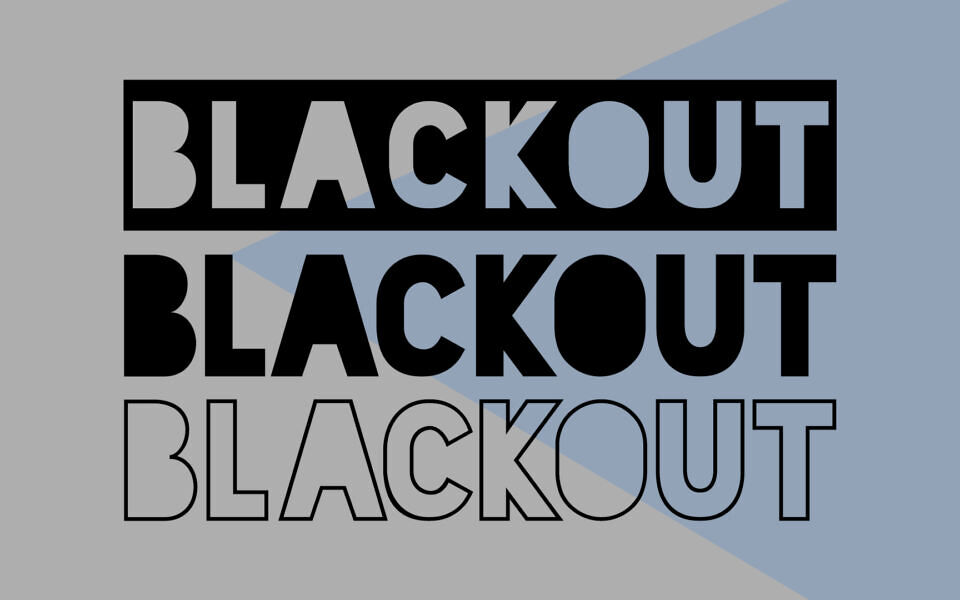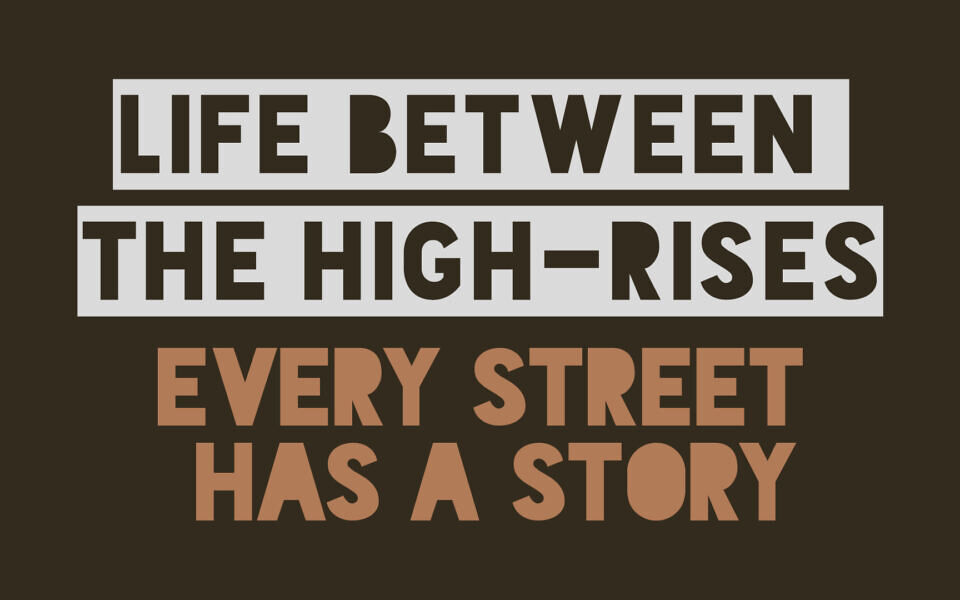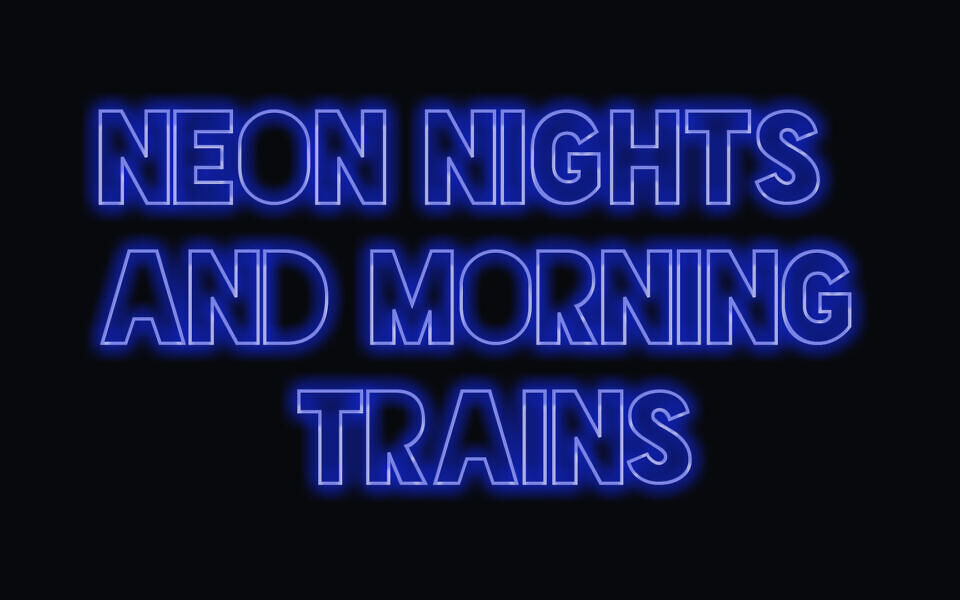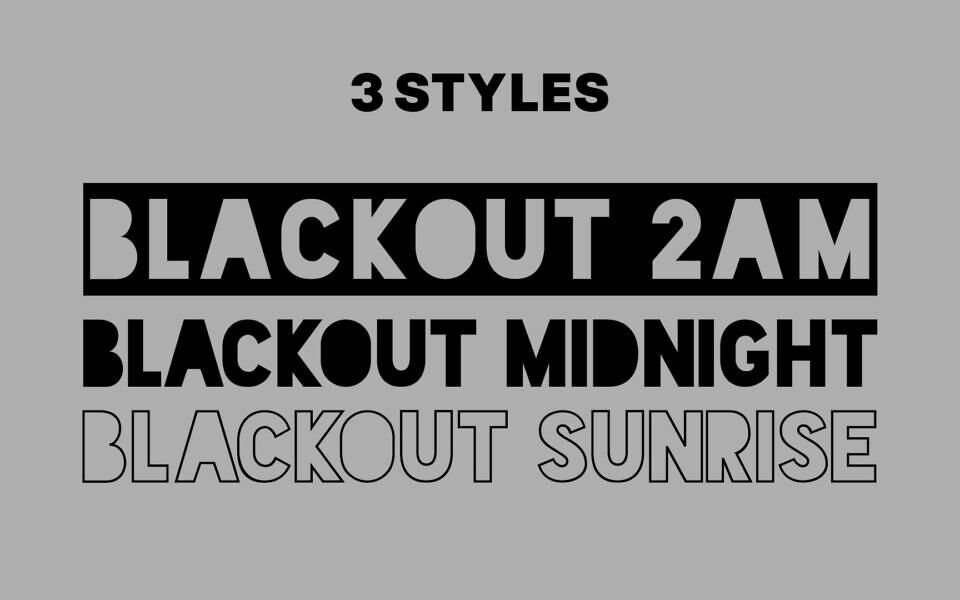
Blackout Font Family
Blackout is a bold display font by Tyler Finck, inspired by filled-in sans-serif newspaper headlines. Its heavy, high-impact letterforms bring a loud, urban character to posters, titles, branding, and editorial designs.
The family includes three distinctive styles: Midnight with solid forms, 2AM with reversed lettering, and Sunrise with outlined strokes.
Designed by: Tyler Finck